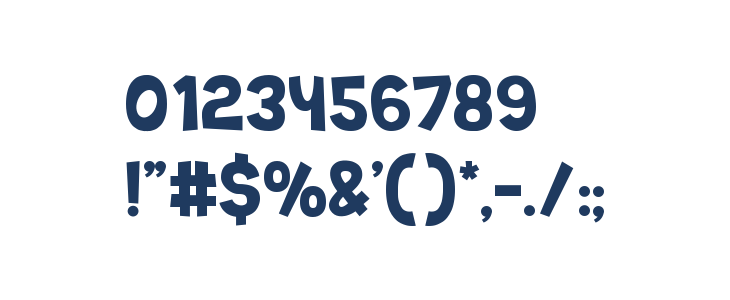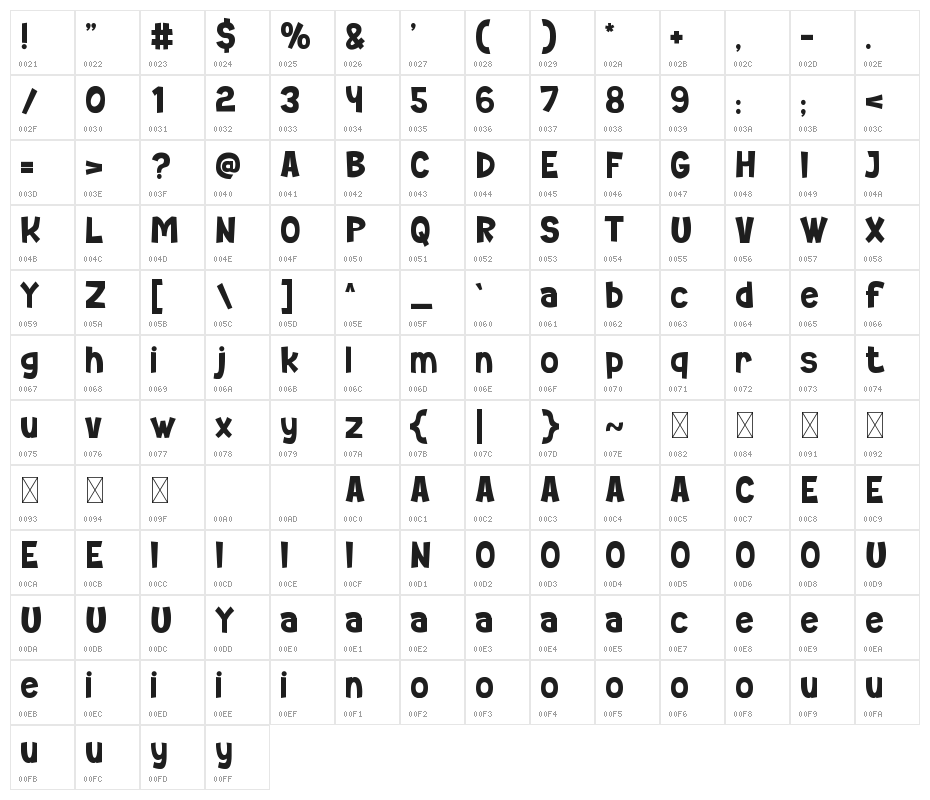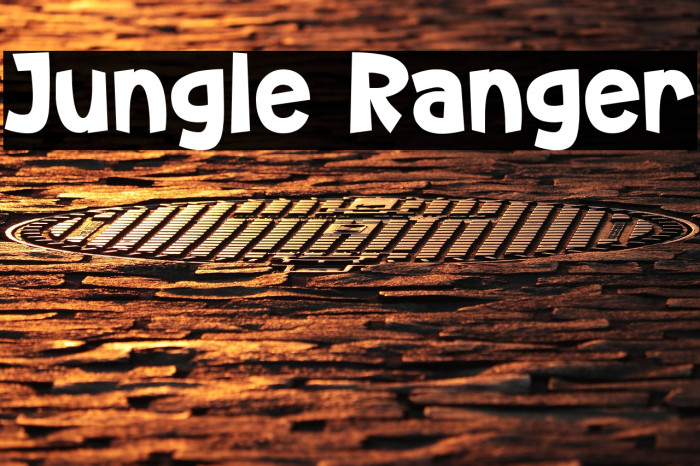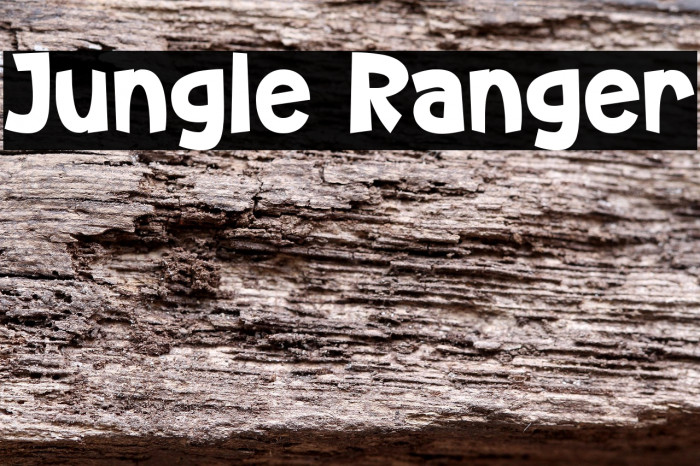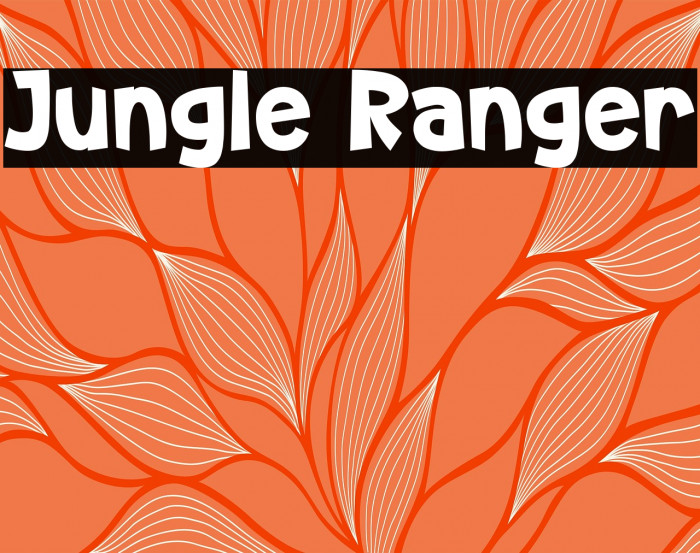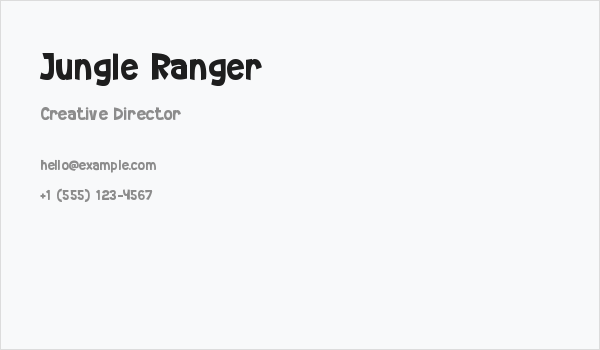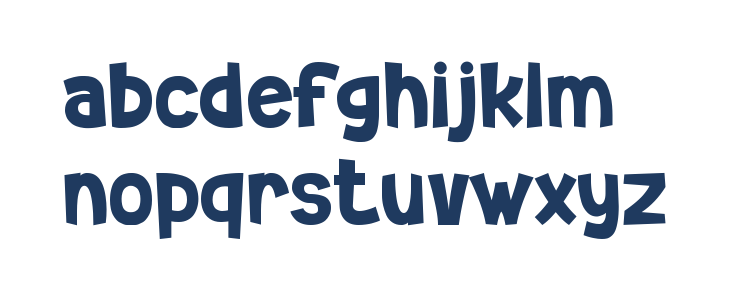
Jungle Ranger Font
Jungle Ranger Description
This font exudes a playful and adventurous spirit, characterized by its bold and slightly irregular letterforms. The uppercase letters are robust and dynamic, with a slight tilt that adds a sense of movement and energy. The lowercase letters maintain this lively feel, with rounded edges and a consistent stroke width that enhances readability. The numbers are equally bold, ensuring they stand out in any design. Special characters are crafted with the same attention to detail, making them seamlessly integrate with the rest of the font. Overall, this font is perfect for projects that require a fun and engaging aesthetic.
| Overall Style | Playful, Adventurous |
| Proposed Projects | Ideal for children's books, adventure-themed posters, playful branding, and eye-catching headlines. |